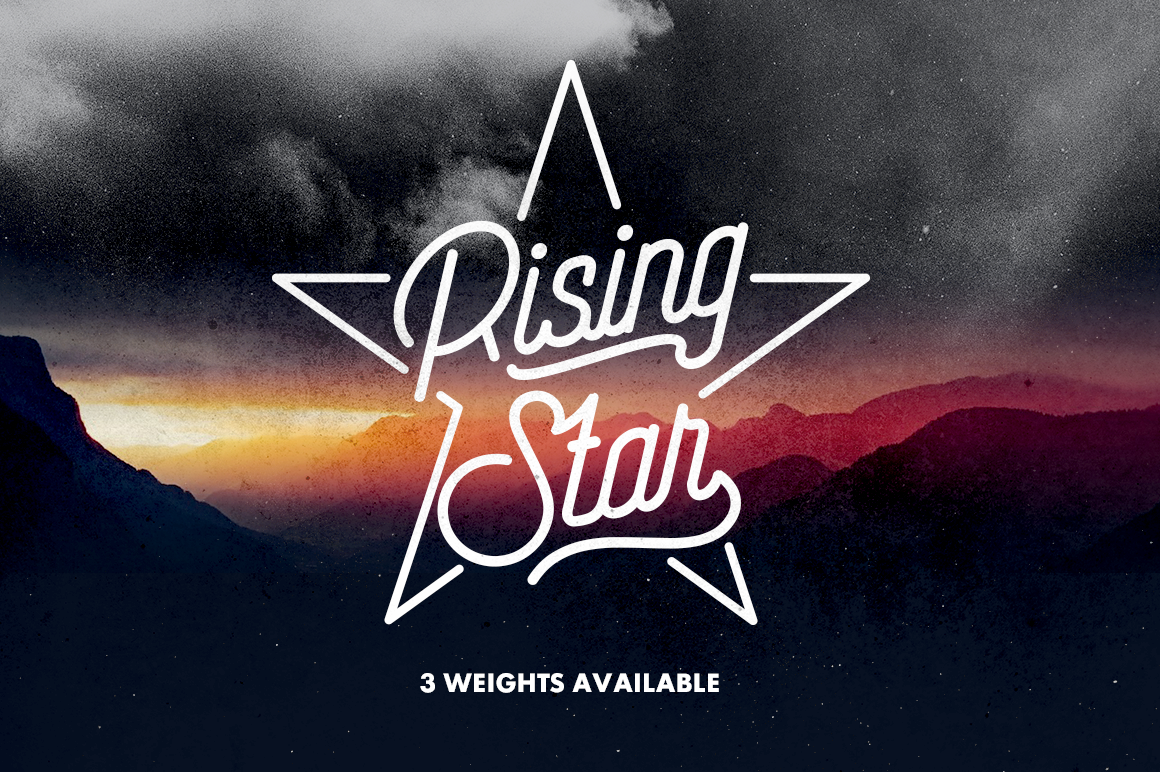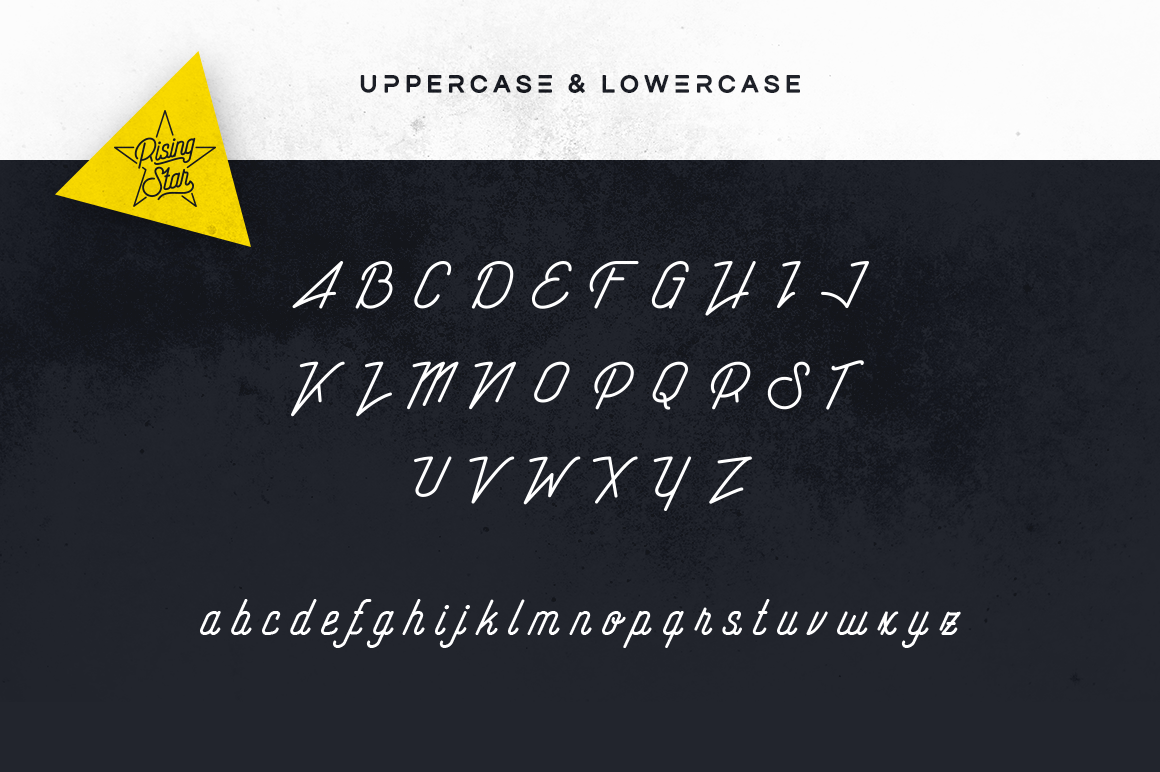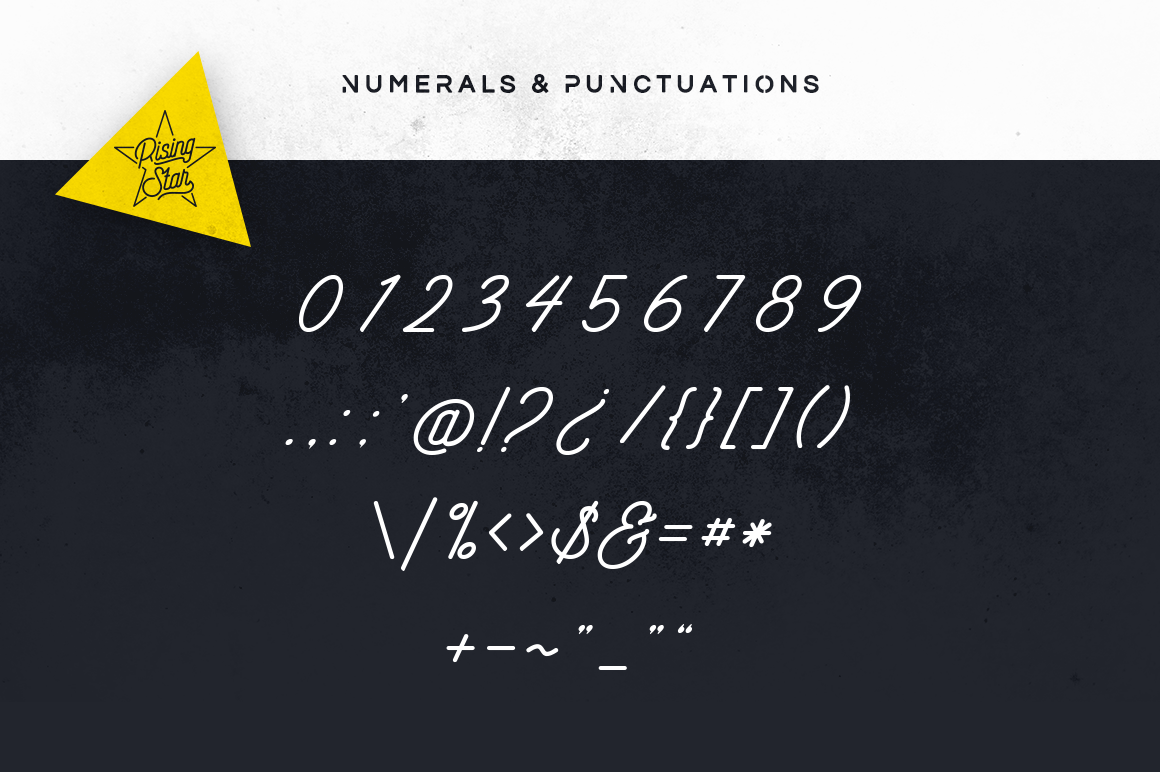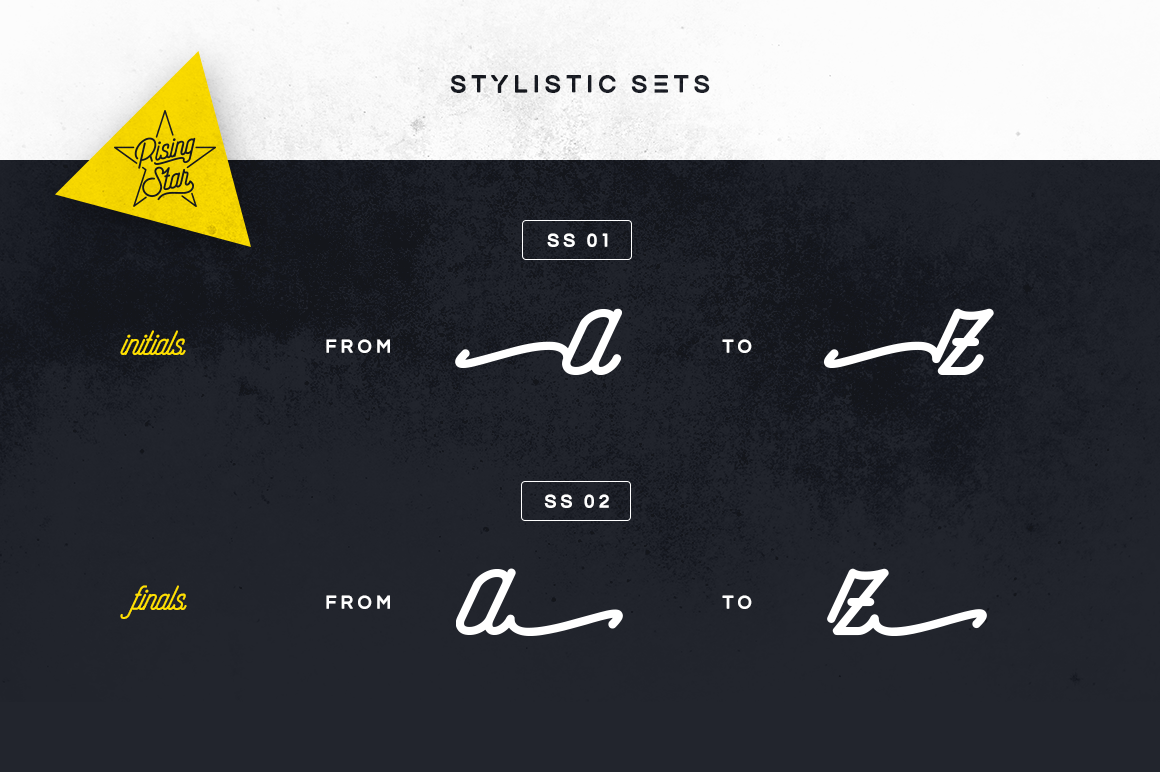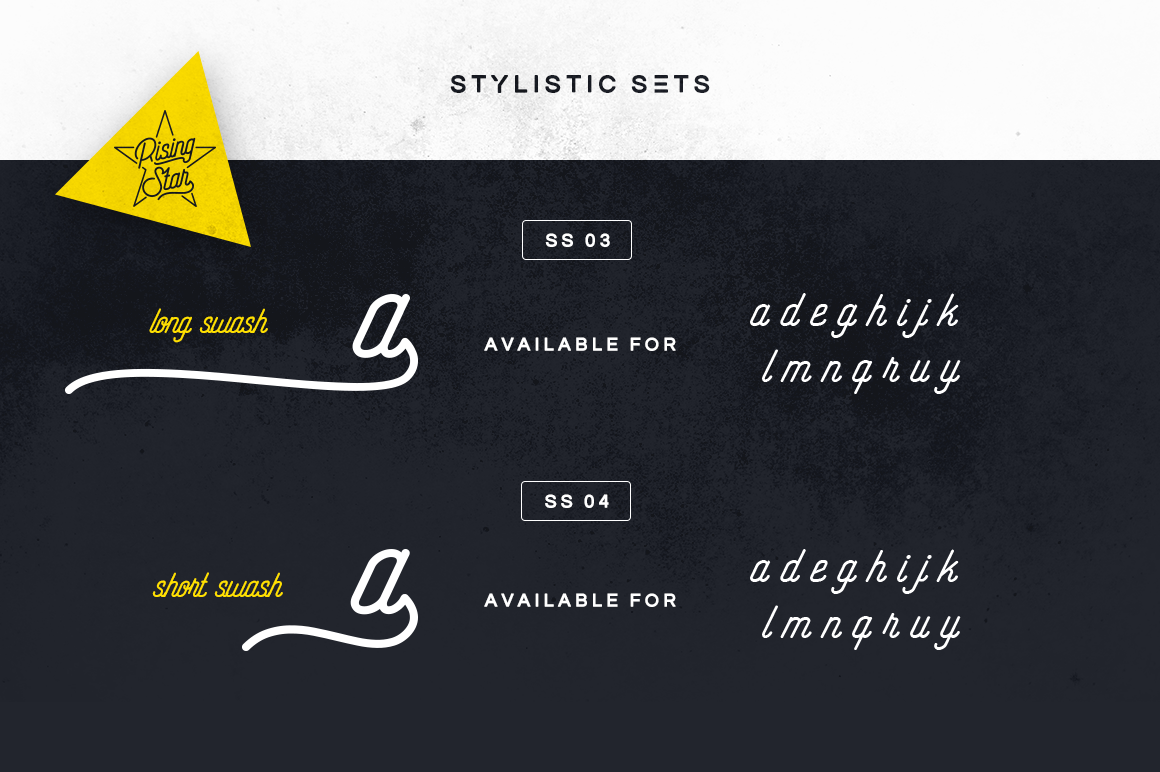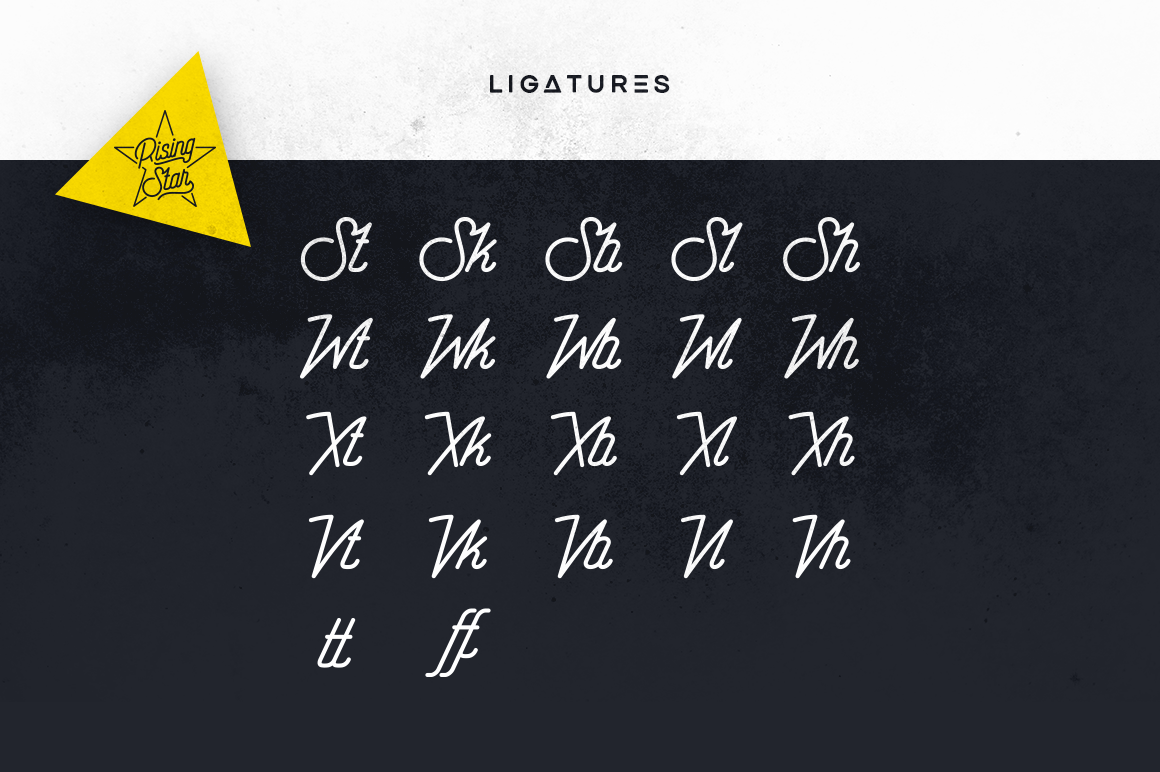
About Rising Star Font
Rising Star is a modern monoline script with an adventurous mood. It is inspired by, well: the nostalgia of summer camp, in the woods and near the lake, a warm laugh with best friends, and unlimited stars in the clear night sky. Rising Star turns out nostalgia just in time for summer, and brings a dynamic and vivacious vibe with three different styles to choose from.